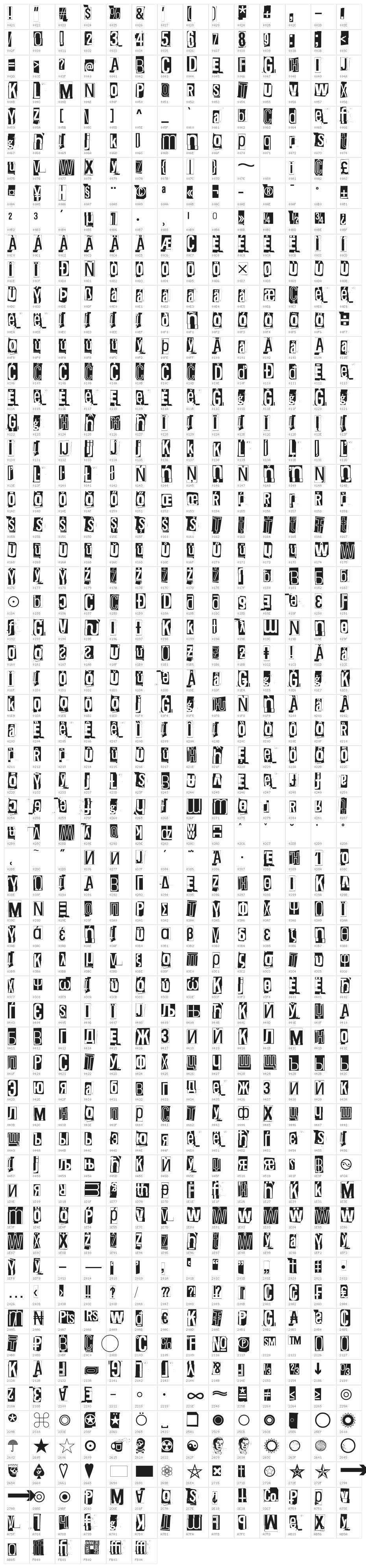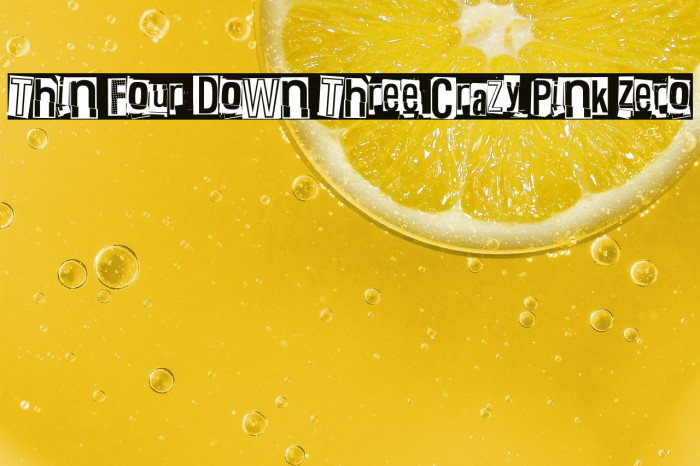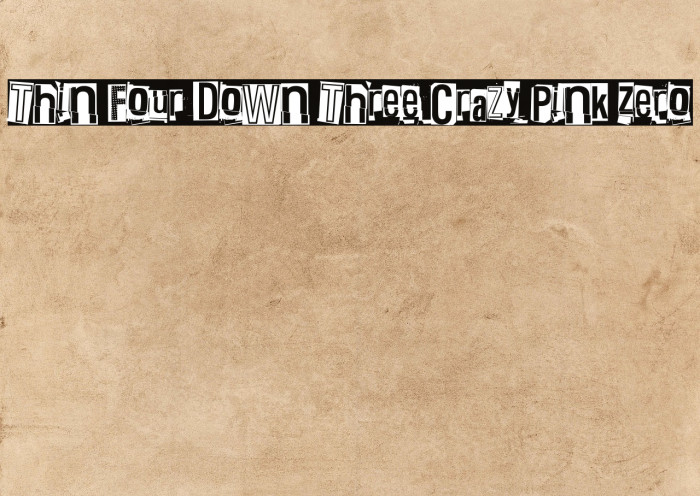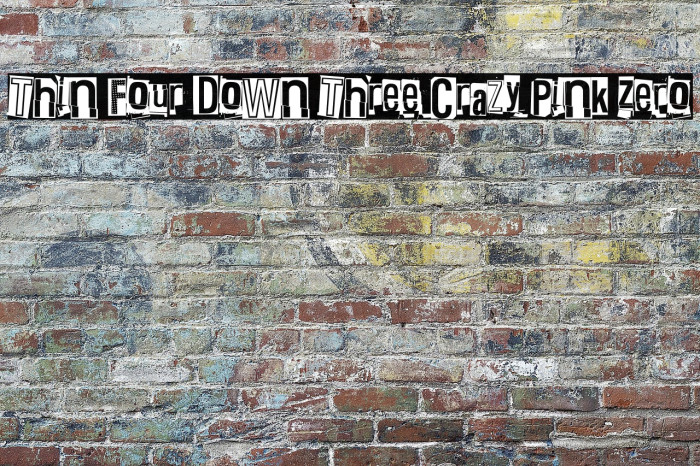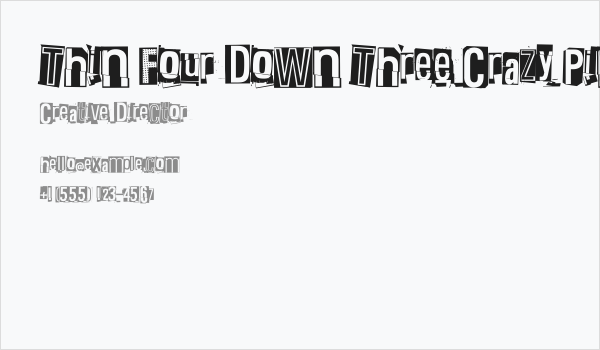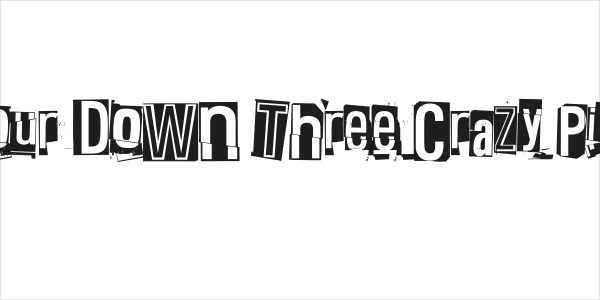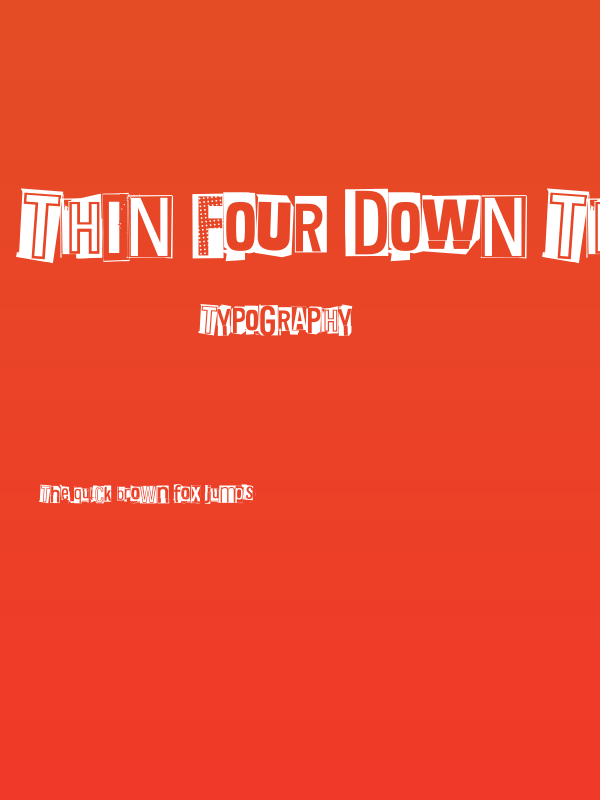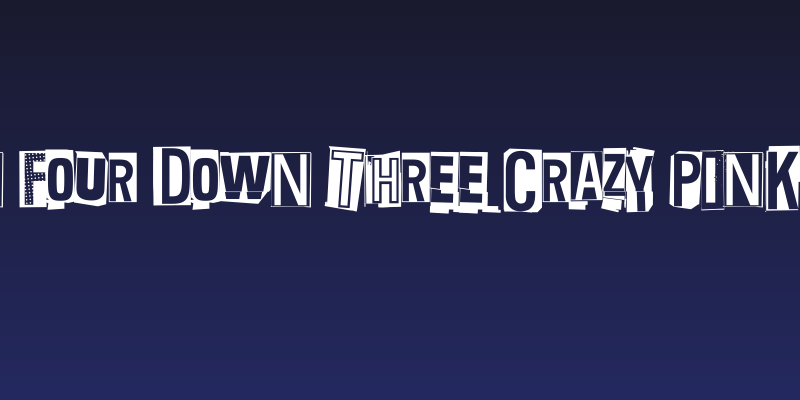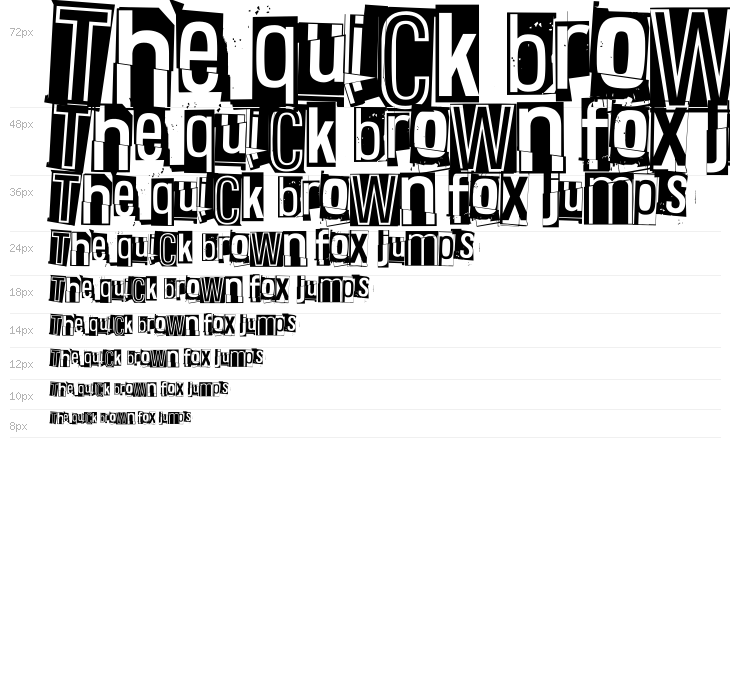
Thin Four Down Three Crazy Pink Zero Font
Thin Four Down Three Crazy Pink Zero Description
A bold, eclectic font with a collage-like appearance, featuring a mix of styles and textures. Each character appears as if cut from different sources, creating a chaotic and artistic look.
| Use Case | Headlines, Artistic designs |
| Proposed Projects | Album covers, posters, artistic projects. |